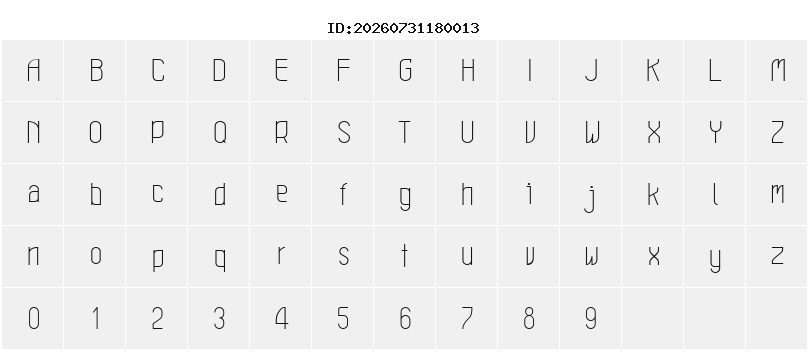
• Font Name: Leicht
• Designer: Euamrittee Jeerawatthanakaset
About Leicht.ttf
Leicht.ttf is a modern, elegant sans-serif font designed for ultimate readability and visual harmony. Perfect for branding, headlines, web design, and print materials.